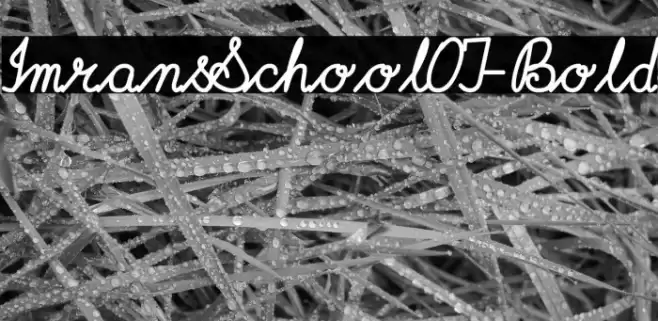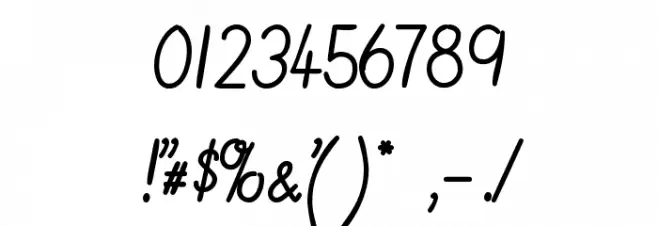
ImransSchoolOT-Bold Font
ImransSchoolOT-Bold Description
This font features a flowing, cursive style that mimics elegant handwriting. The characters are connected, giving it a continuous and smooth appearance. The uppercase letters are slightly more elaborate, with decorative flourishes, while the lowercase letters maintain a consistent, rounded form. Numbers and special characters are designed to match the overall script style, ensuring uniformity across all elements. The font's strokes are moderately thick, providing a bold presence without overwhelming the design. This style is reminiscent of traditional calligraphy, offering a classic yet approachable look.
A cursive, script-style font with connected letters and moderate stroke thickness from Uncategorized fonts.
- Overall Style: Classic